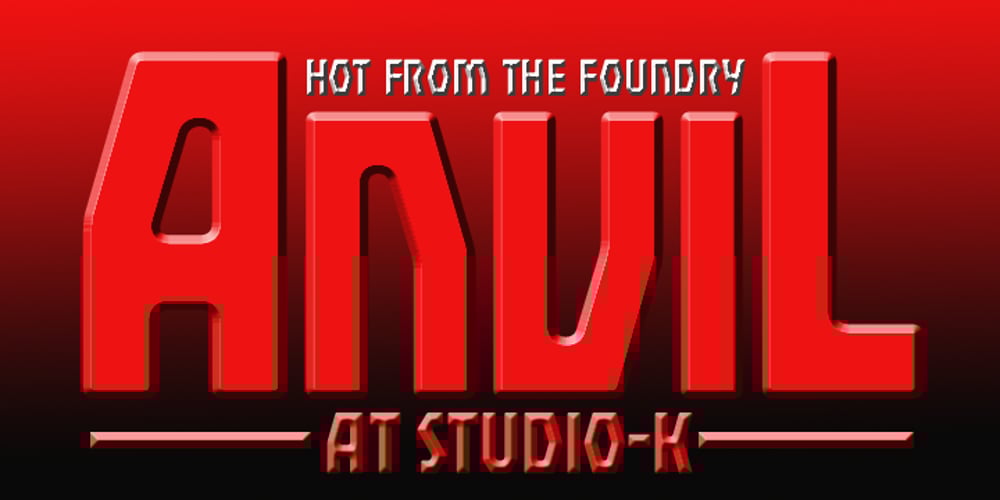
Anvil
Anvil font
Anvil Font Family was designed by Keith Tricker and published by Studio K. Anvil contains 4 styles and family package options. The days of hot metal may be behind us, but Anvil looks as if it has been forged in a smithy’s fire: a handsome, heavyweight display face that is both impressive and impactful.